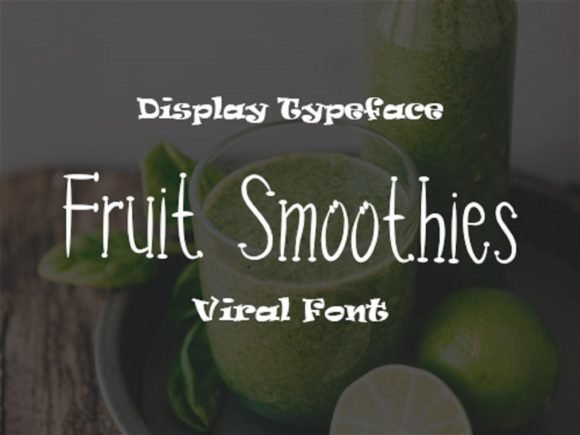
Introduction to Fruit Smoothies Font
Fruit Smoothies simple, quirky and cute handwritten font.
Why Choose Fruit Smoothies Font?
Fruit Smoothies Font offers exceptional quality and versatility, making it a valuable addition to your design toolkit. Whether you’re creating for personal projects or commercial use, Fruit Smoothies Font delivers professional results.